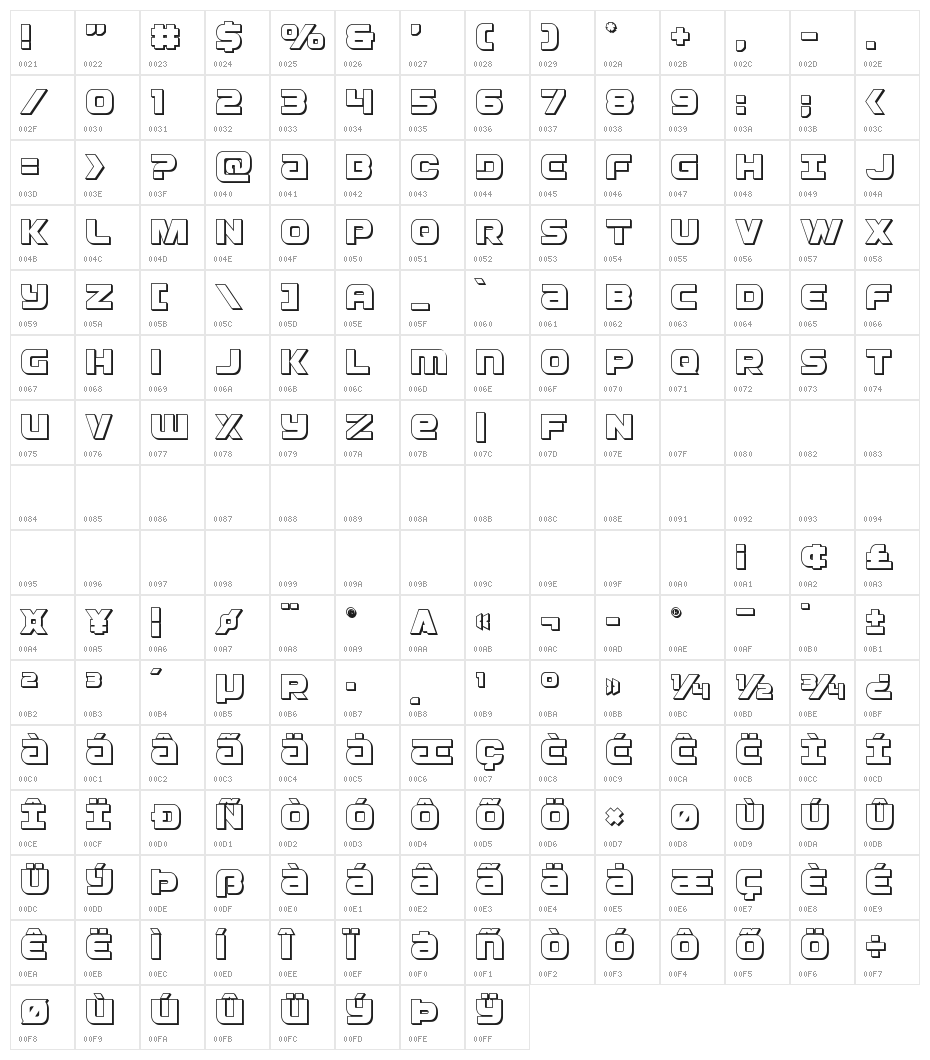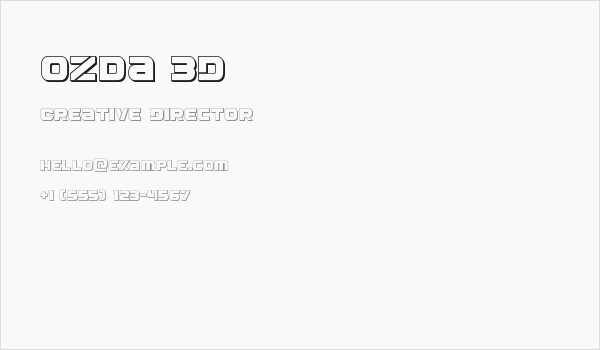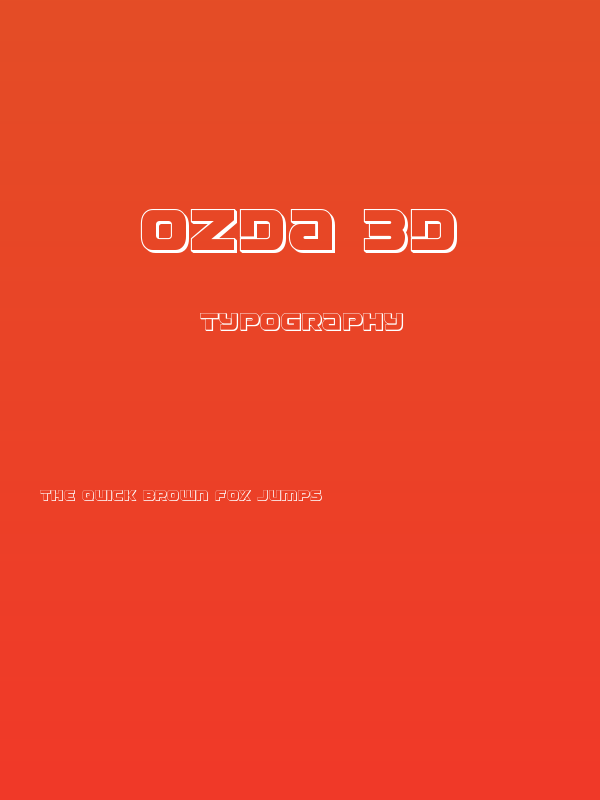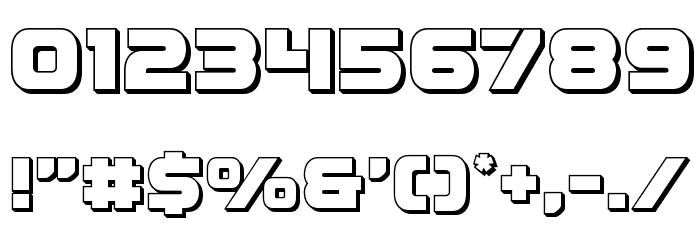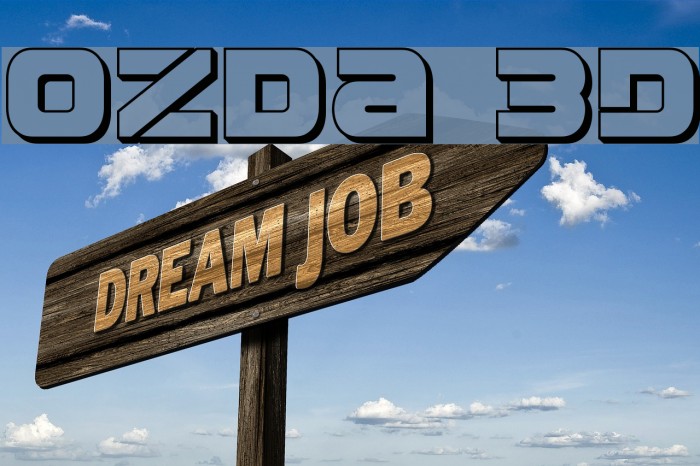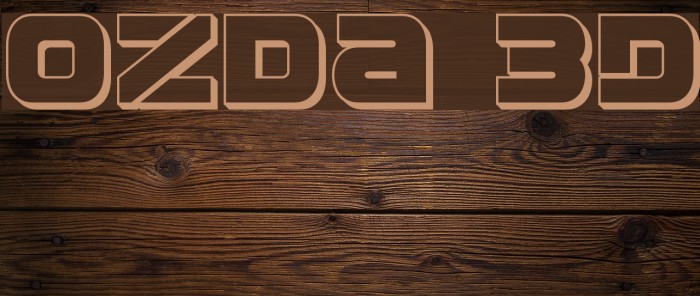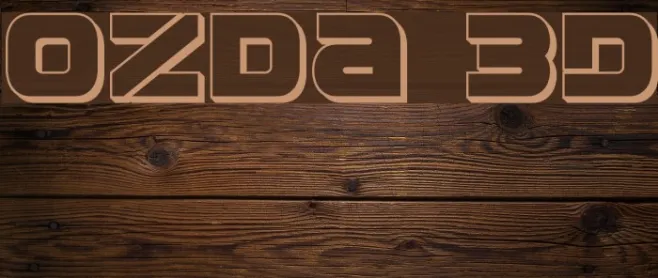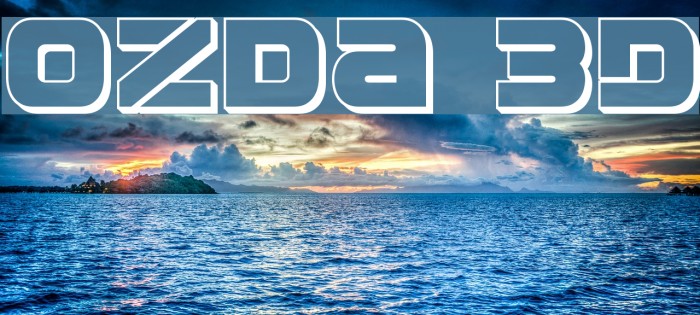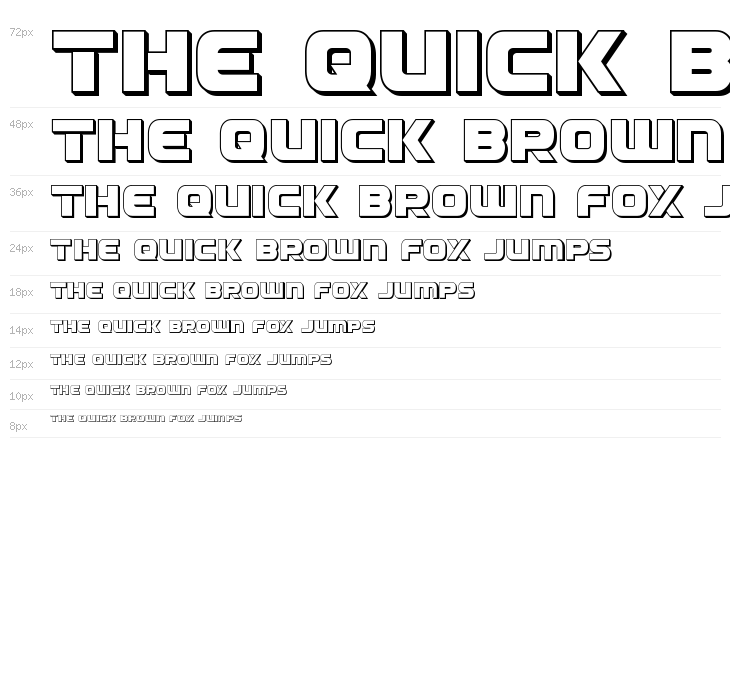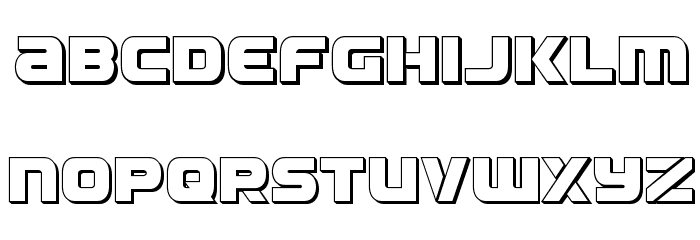
Ozda 3D Font
Ozda 3D Description
This font features a bold, three-dimensional appearance with a strong geometric structure. Each character is outlined, creating a hollow effect that enhances its 3D look. The uppercase and lowercase letters maintain a consistent style, with sharp angles and clean lines. The numerals and special characters follow the same design principles, ensuring uniformity across all glyphs. This font is visually striking and commands attention, making it ideal for projects that require a modern and impactful aesthetic.
OZDA-3D UPPERCASE
OZDA-3D LOWERCASE
OZDA-3D OTHER CHARS